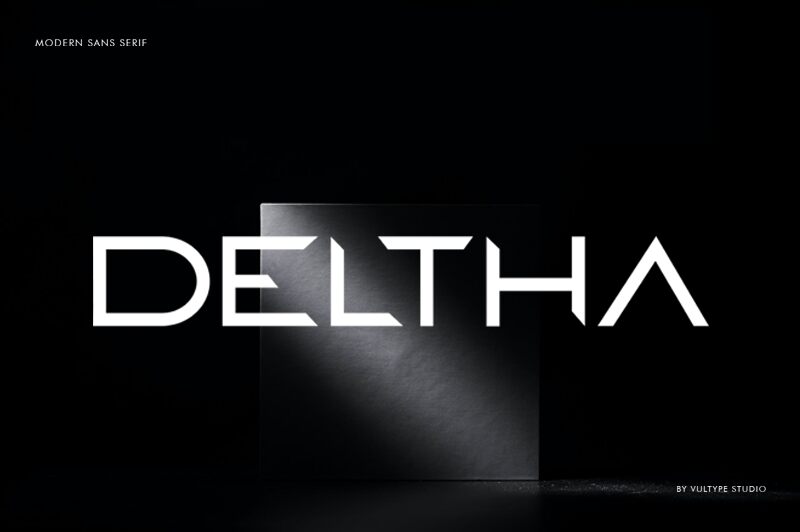
Deltha Regular
Deltha, crafted by the talented team at Vultype, is a captivating display font that exudes a bold, futuristic aesthetic. With its expanded width and sharp, geometric forms, this typeface commands attention, effortlessly evoking a sense of modernity and technological advancement. Its striking visual presence resonates powerfully, making it an ideal choice for a wide range of design applications, from eye-catching headlines and impactful branding to dynamic user interfaces and cutting-edge digital experiences.
Deltha's versatility shines through its ability to seamlessly integrate into diverse design contexts. Its powerful presence lends itself particularly well to projects that require a strong, forward-thinking visual identity, such as tech startups, sci-fi-inspired designs, and innovative product launches. The font's expansive character set and legibility at various sizes make it a versatile tool for designers seeking to create visually stunning and memorable typographic compositions.